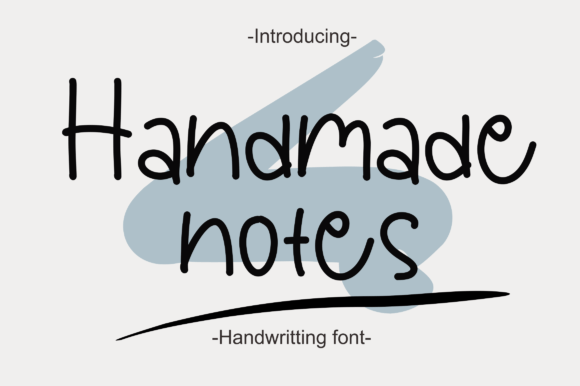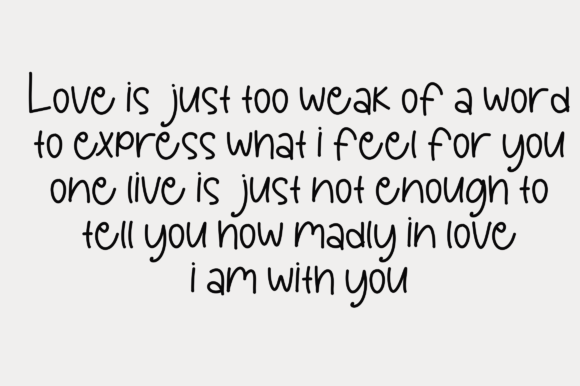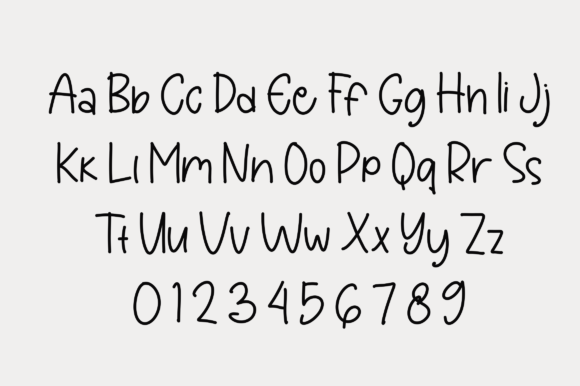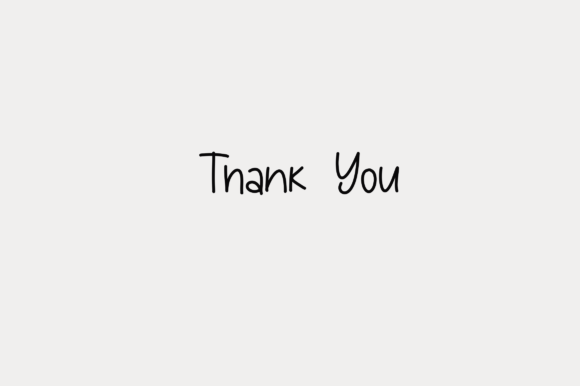
About Handmade Notes Font
**Handmade Notes Font: Craft Personal Touches**
Handmade Notes is a charming handwritten font that captures the essence of quick, personal notes and reminders. It adds a touch of authenticity and warmth to various design projects. Here’s how you can make the most of Handmade Notes:
1. **Notes and Reminders:** Use Handmade Notes to create digital or printed notes and reminders that mimic the look of handwritten messages. It’s perfect for to-do lists, sticky notes, and personal reminders.
2. **Personal Journals:** Craft personalized journal pages, diary entries, or scrapbook elements with Handmade Notes. Its informal style creates an intimate and handwritten feel.
3. **Greeting Cards:** Design heartfelt greeting cards with a personal touch. Handmade Notes adds sincerity to birthday cards, thank-you notes, and other special occasion cards.
4. **Stickers and Labels:** Create custom stickers and labels for personal or business use. The font’s handwritten appearance adds an artisanal and handmade quality.
5. **Handcrafted Gifts:** Personalize handmade gifts with messages written in Handmade Notes. Whether it’s a custom candle, photo album, or framed artwork, the font enhances the sentimental value.
6. **Artistic Posters:** Design posters with quotes, affirmations, or inspirational messages using Handmade Notes. Its casual style infuses positivity and authenticity into the artwork.
7. **Recipe Cards:** Make recipe cards that feel like they’ve been passed down through generations. Handmade Notes lends a nostalgic and handwritten touch to culinary creations.
8. **Event Invitations:** Design informal and rustic-style event invitations with Handmade Notes. It’s ideal for casual gatherings, parties, or rustic-themed weddings.
9. **Social Media Graphics:** Incorporate Handmade Notes into your social media posts for a more personal and relatable vibe. Use it for captions, quotes, or overlays.
10. **Scrapbooking:** Enhance your scrapbook layouts with Handmade Notes. Create handwritten captions, date stamps, and annotations for a DIY and personalized look.
11. **Online and Print Newsletters:** Add handwritten sections to newsletters, giving them a friendly and approachable feel. Handmade Notes adds a personal touch to community updates.
12. **Email Signatures:** Customize your email signature with Handmade Notes to create a friendly and personal connection with recipients.
13. **Handwritten Fonts Pairing:** Combine Handmade Notes with other fonts in your design projects to create unique and balanced typography compositions.
14. **Product Packaging:** Use Handmade Notes to add handwritten-style labels or messages to product packaging. It imparts an artisanal and personal quality to your products.
15. **Family History Documents:** Design family trees, genealogy records, or ancestral history documents with Handmade Notes to evoke a sense of heritage and nostalgia.
16. **Personal Blog Headers:** Create hand-drawn blog headers or titles using Handmade Notes to make your blog feel more personal and approachable.
Handmade Notes font offers a delightful way to infuse a personal, handwritten touch into your design projects. Its authenticity and warmth are perfect for adding sincerity and charm to various creative endeavors. Whether you’re creating digital content or tangible keepsakes, Handmade Notes can help you craft personalized and heartfelt pieces that resonate with your audience.